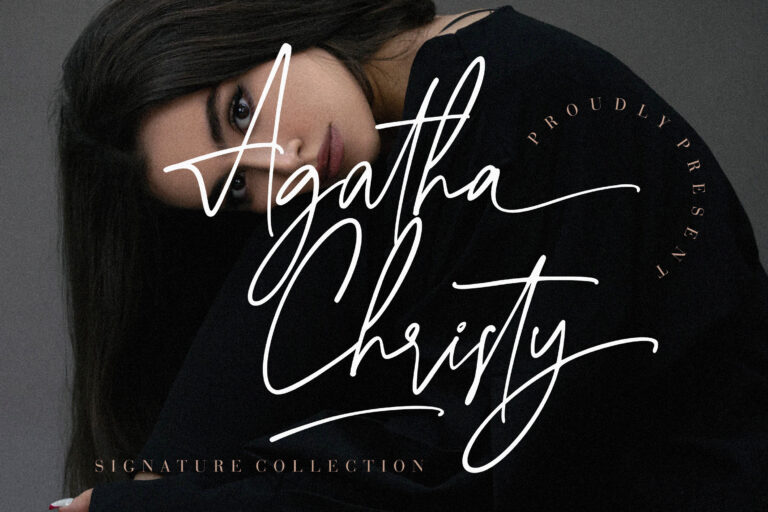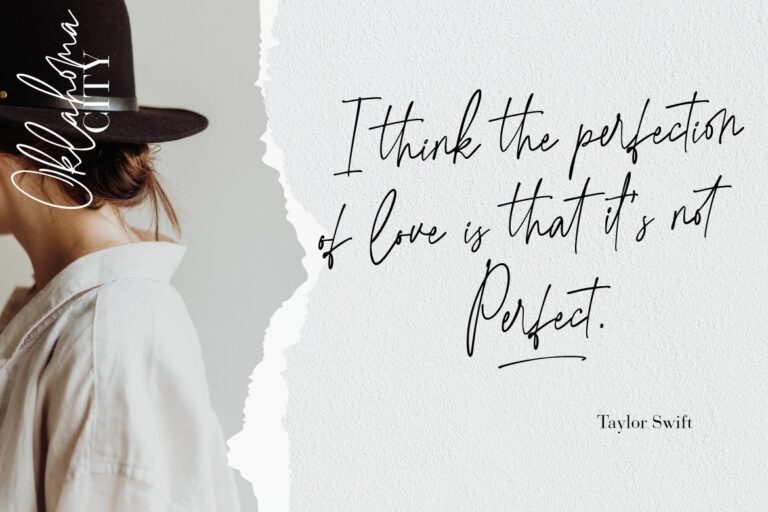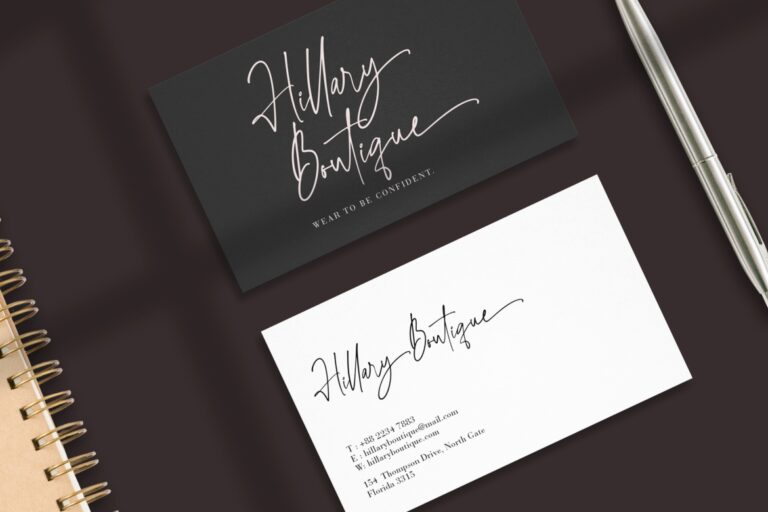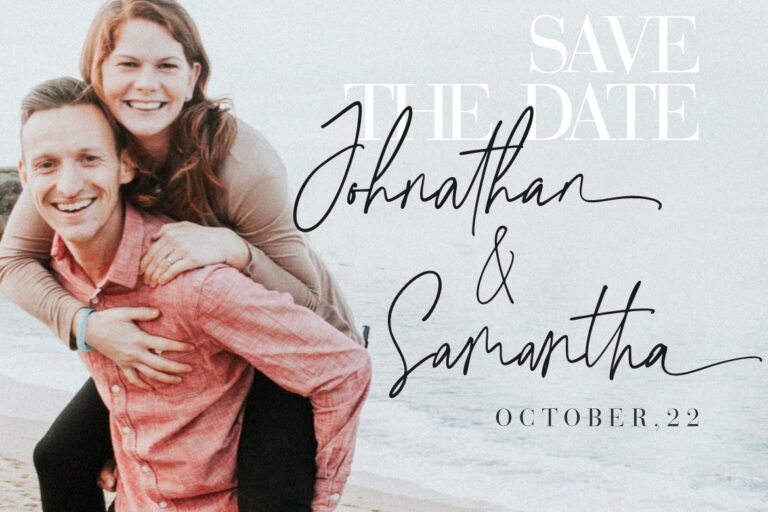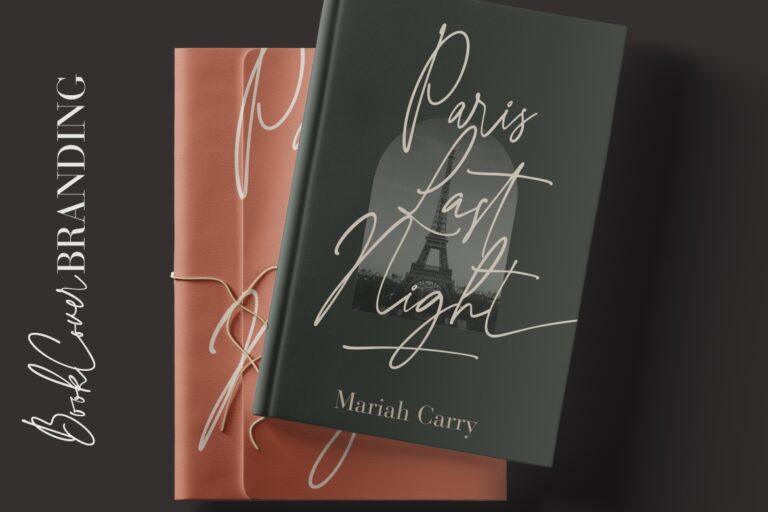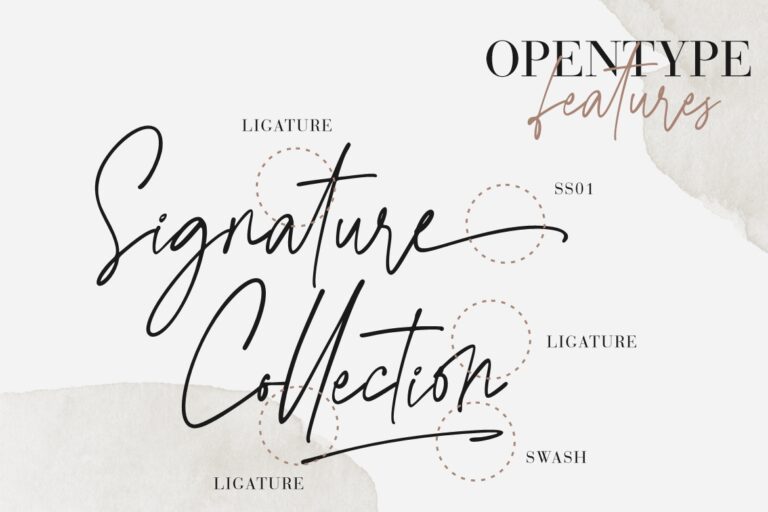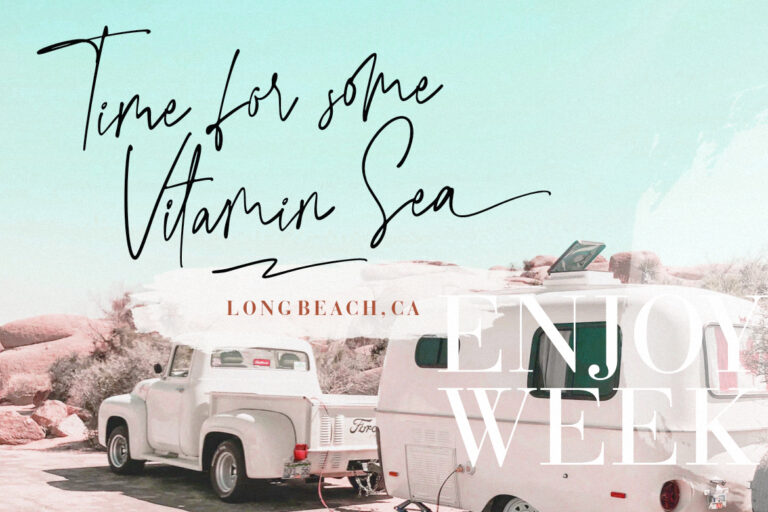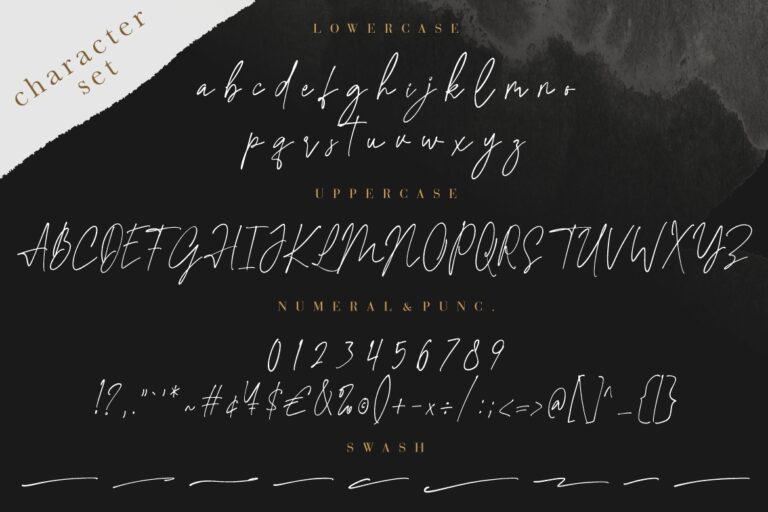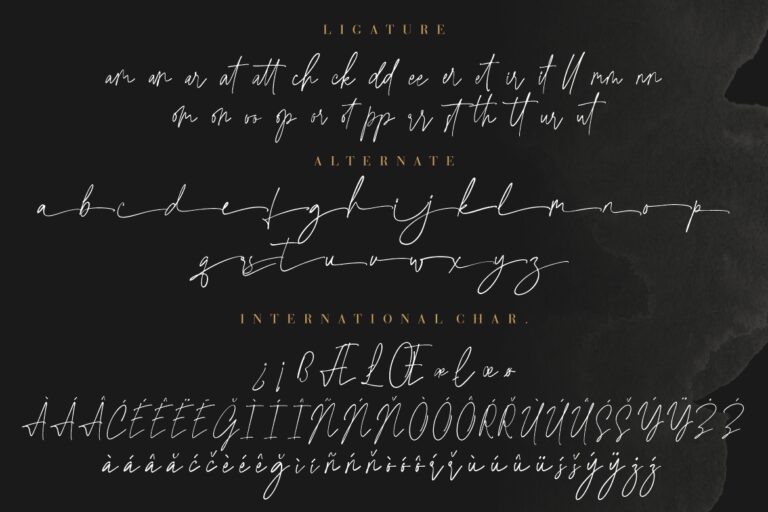
Agatha Christy Signature Collection
Agatha Christy is signature script font with elegant and classy looks perfect for your font collection.
Agatha Christy is perfect for branding projects, logo, wedding designs, social media posts, advertisements, product packaging, product designs, label, photography, watermark, invitation, stationery and any projects that need handwriting taste.